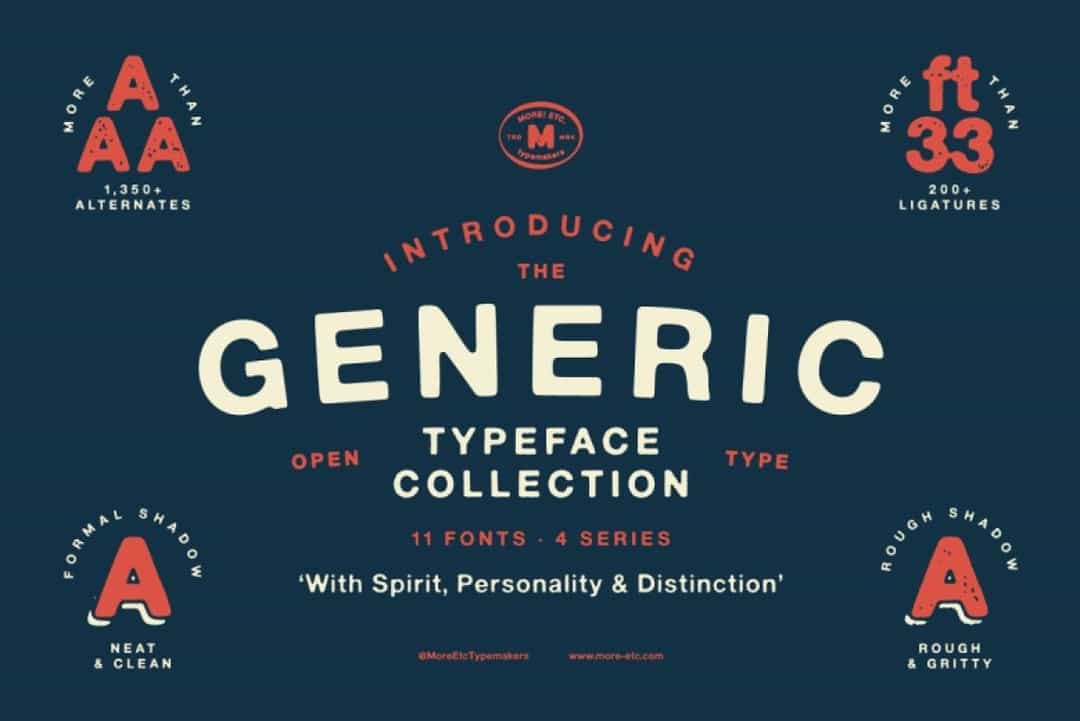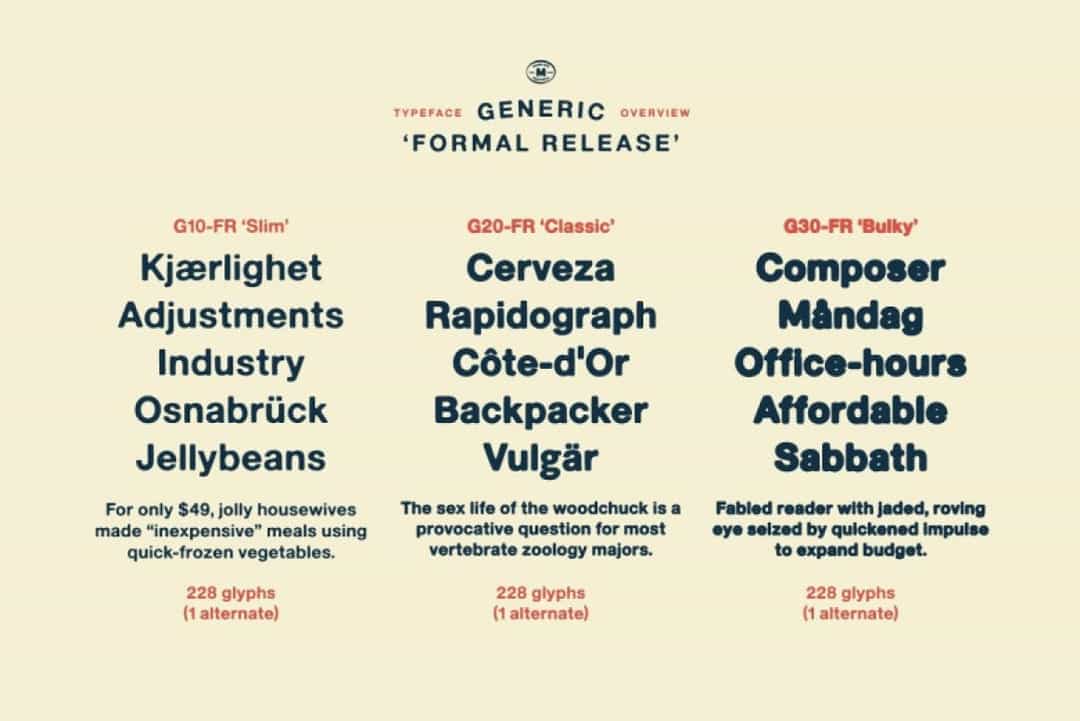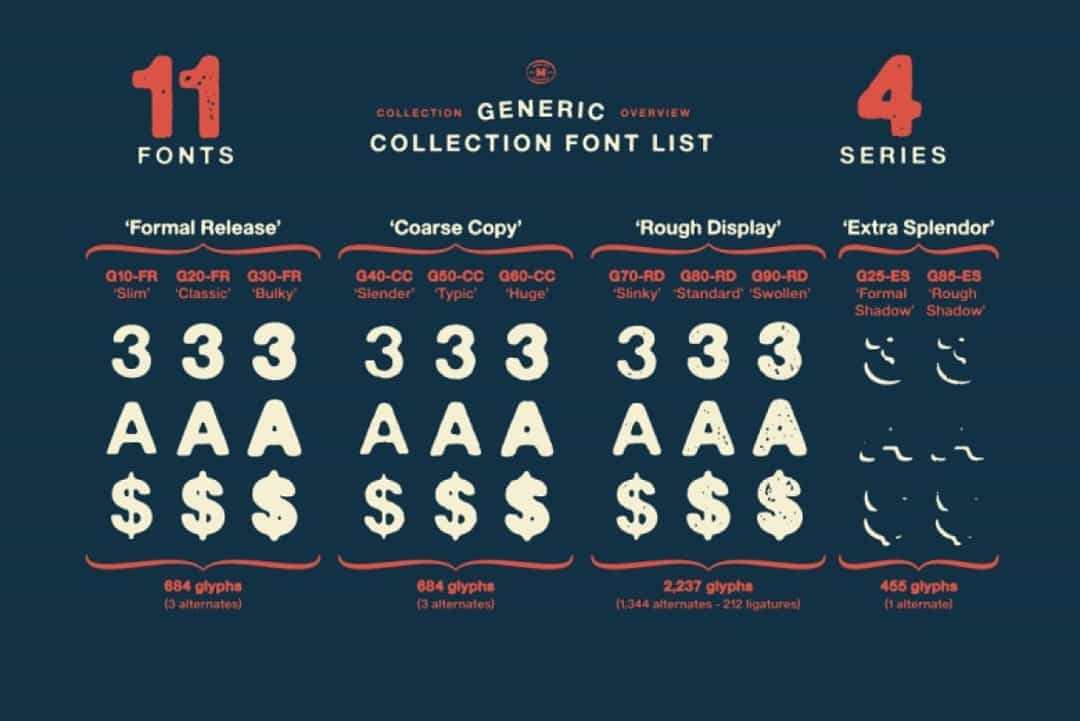
Generic Typeface Collection is an exciting array of sans-serif fonts inspired by graphic design, typography and printing from before Adobe, Macintosh computers and desktop publishing came into being; during this era dinosaurs reigned supreme over Earth.